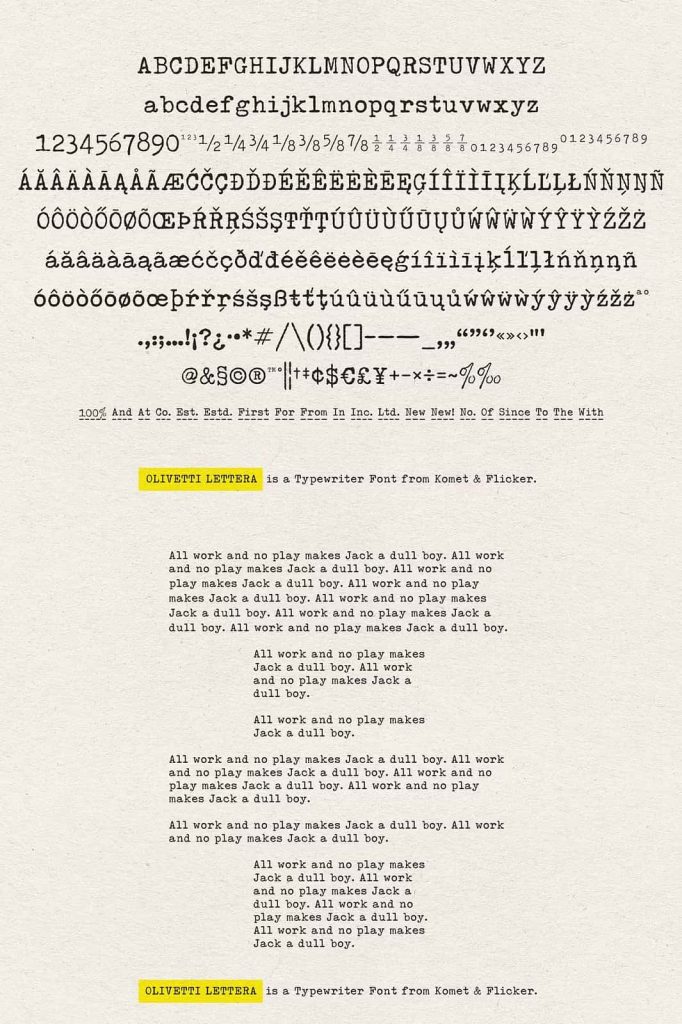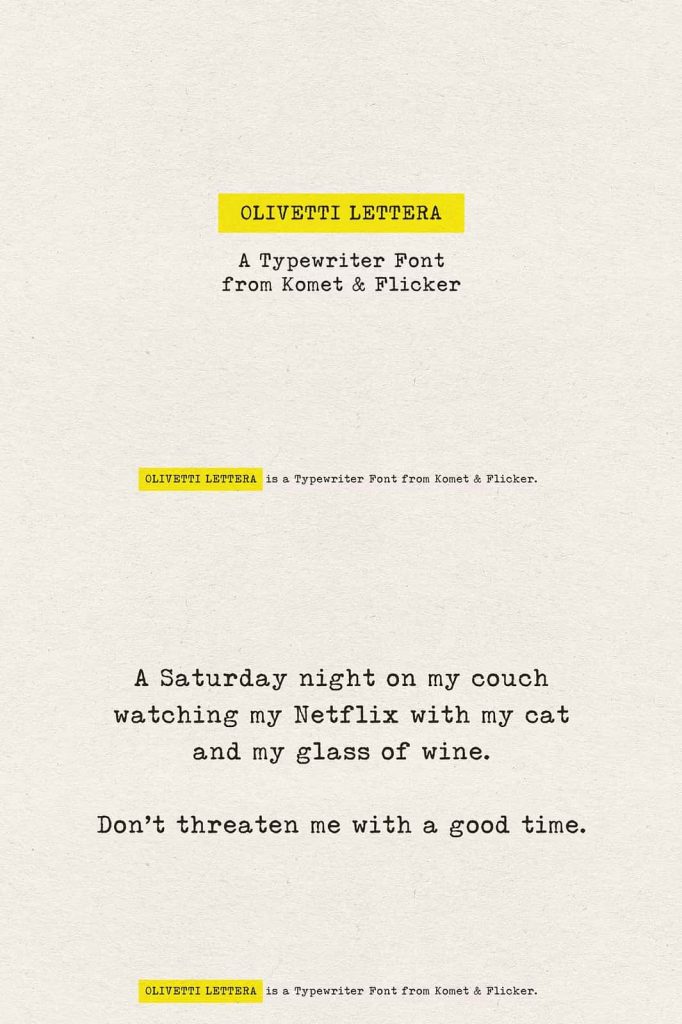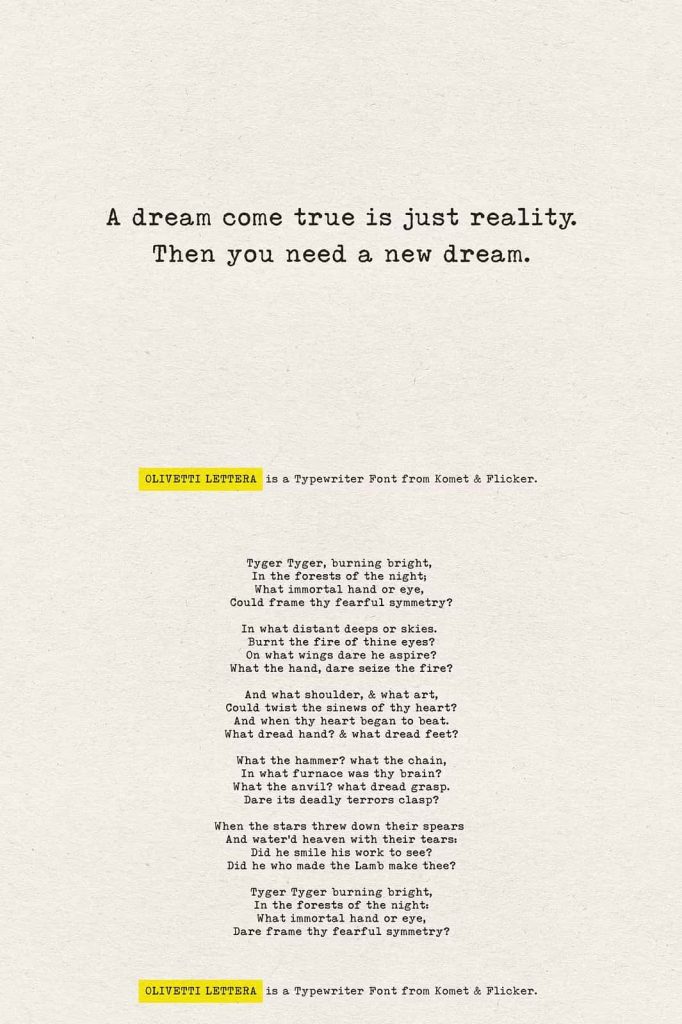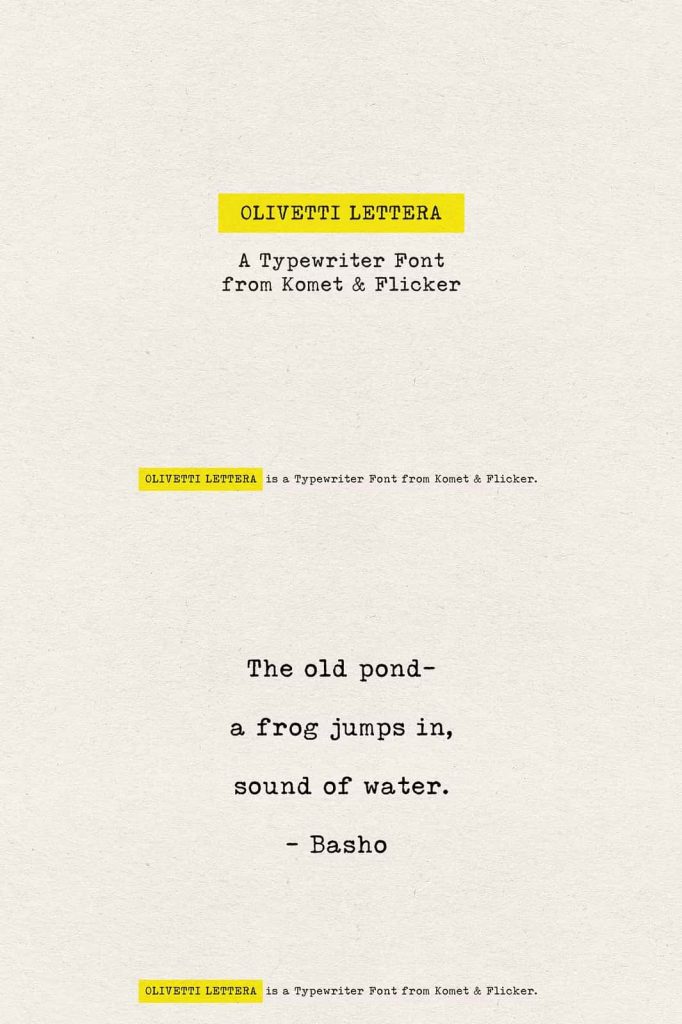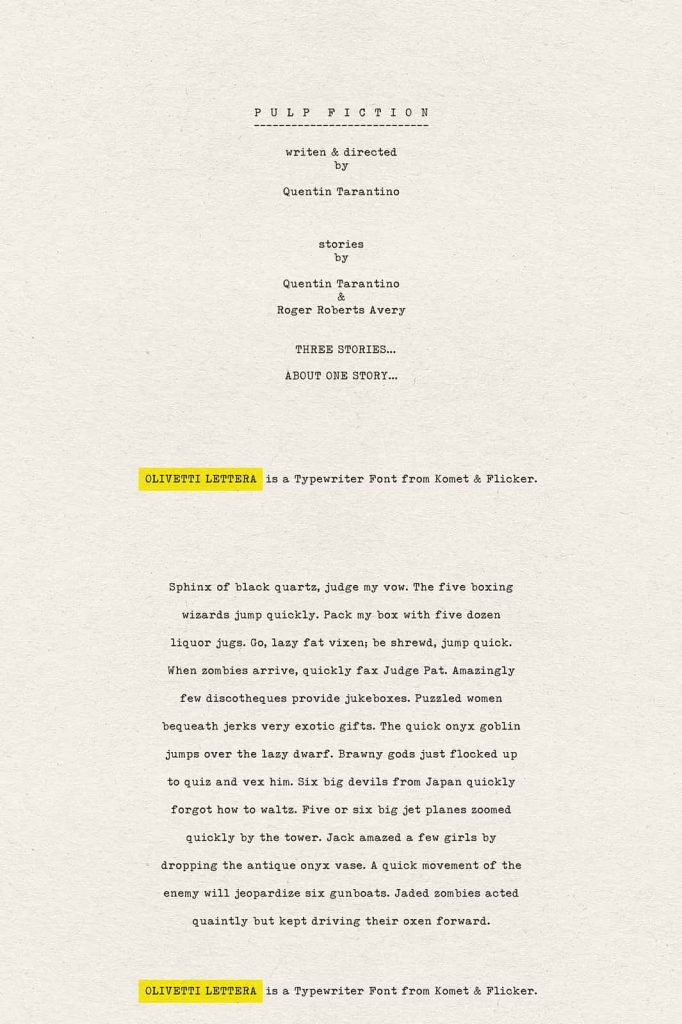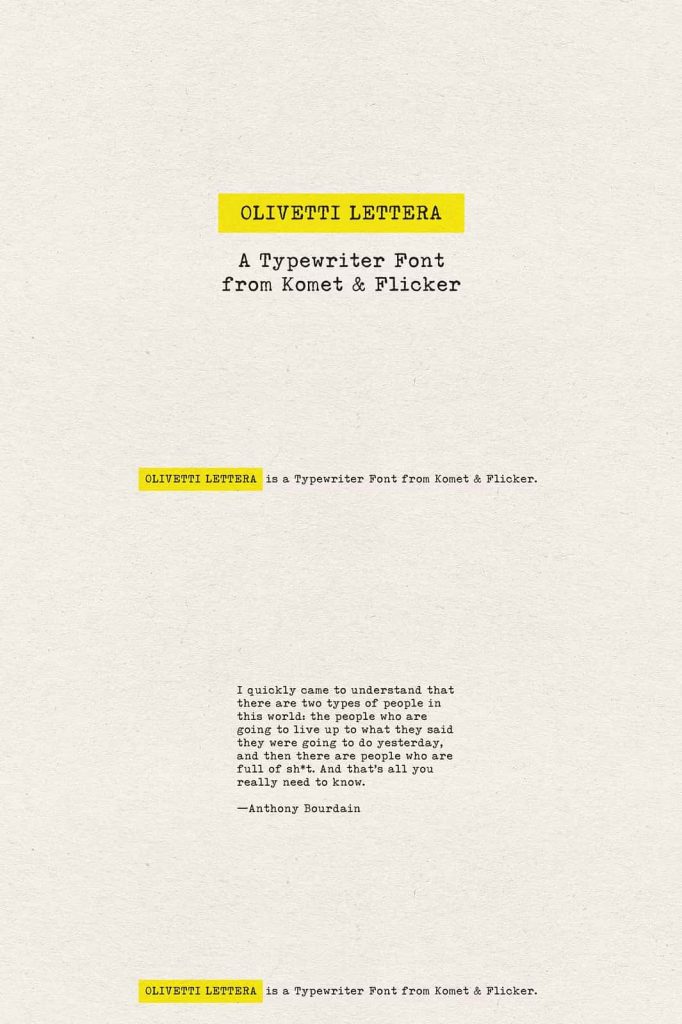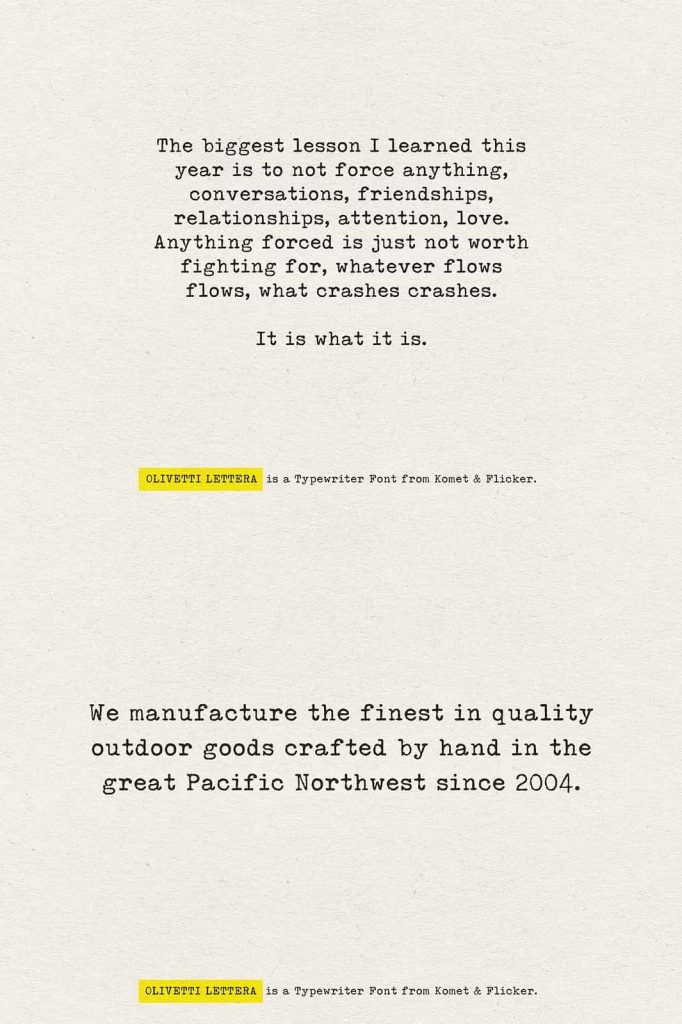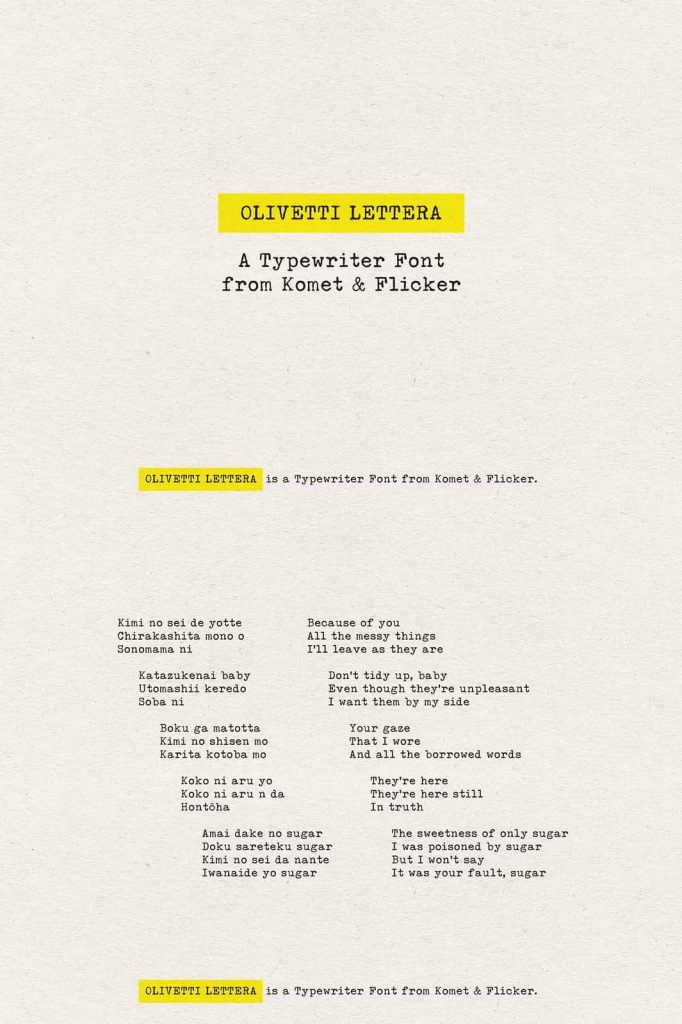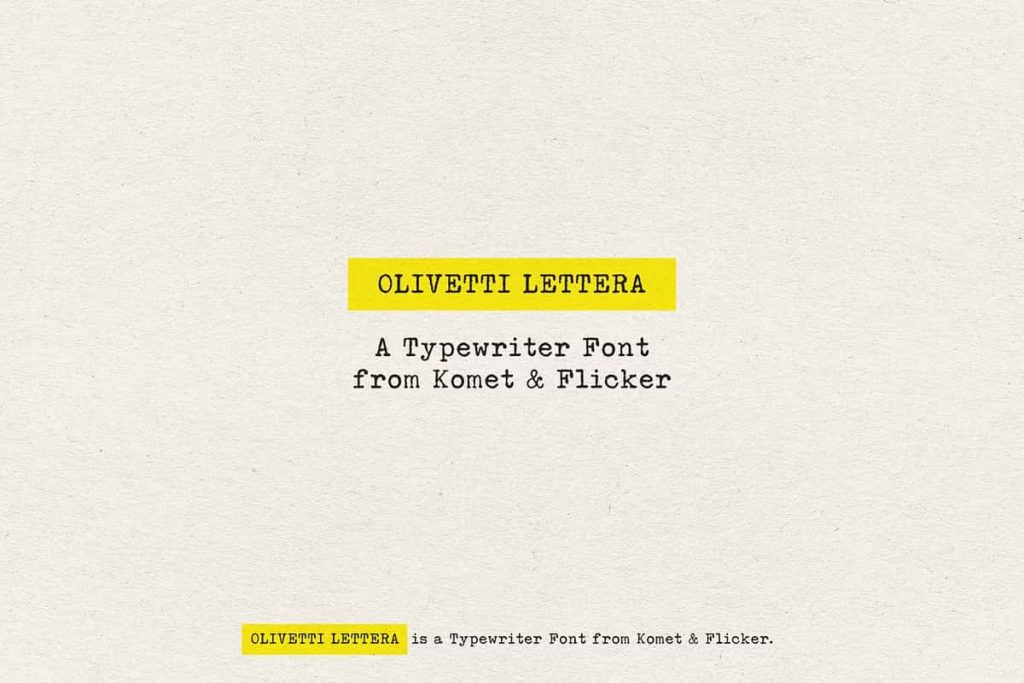
Olivetti Lettera – A Typewriter Font
Olivetti Lettera Serif Font with Vintage Typewriter Character
Olivetti Lettera is a refined serif font inspired by the iconic Lettera 35 typewriter, known for its timeless charm and mechanical precision. This typeface captures the essence of analog design by blending structured serif forms with the raw, tactile imperfections of vintage typing. Every character reflects the spirit of classic typewriting, allowing designers to bring authenticity and personality into their work.
Inspired by Classic Typewriter Heritage
The Olivetti Lettera font draws direct inspiration from the renowned typewriter era, where every keystroke carried subtle variations and texture. Instead of creating a perfectly uniform digital font, this typeface embraces irregularity to replicate the look and feel of real ink hitting paper. This approach adds depth and character, making your designs feel more human and expressive.
Designers can use this font to recreate the nostalgic atmosphere of vintage documents, letters, and editorial layouts. Its authentic appearance allows you to tell stories visually, connecting your audience with a sense of history and craftsmanship.
Mechanical Elegance Meets Organic Imperfection
Olivetti Lettera balances precision and imperfection in a way that feels natural and intentional. The serif structure provides clarity and readability, while the subtle inconsistencies in each letter introduce texture and uniqueness. This combination results in a font that feels both structured and alive.
The slightly rough edges and ink-like variations mimic the mechanical limitations of traditional typewriters, enhancing the overall authenticity. These details make the font ideal for projects that require a handcrafted or editorial look.
Create Authentic Editorial and Print Designs
Olivetti Lettera performs exceptionally well in editorial design. Its vintage aesthetic adds depth to magazines, books, and printed materials, helping you create layouts that feel rich and engaging. You can use it for headlines, body text, or decorative elements to build a cohesive and visually compelling composition.
The font also works beautifully in storytelling projects, where the tactile quality enhances the narrative experience. Readers can feel the connection to traditional printing techniques, making your content more immersive.
Perfect for Branding with Character
If you want to create a brand identity that stands out with authenticity, Olivetti Lettera offers a strong foundation. Its distinctive style communicates creativity, heritage, and originality. This makes it an excellent choice for brands that value craftsmanship and storytelling.
You can design logos, packaging, and promotional materials that feel unique and memorable. The font’s vintage appeal helps your brand establish a strong visual identity while maintaining a professional and polished look.
Enhance Creative and Artistic Projects
Olivetti Lettera opens up endless possibilities for creative experimentation. You can use it in posters, art prints, and social media graphics to create designs that feel expressive and textured. Its analog-inspired details add depth, making your visuals more engaging and distinctive.
The font also works well in projects that aim to blend modern design with retro aesthetics. This versatility allows you to explore different creative directions without losing consistency.
Versatile for Digital and Print Applications
Although inspired by vintage typewriters, Olivetti Lettera adapts seamlessly to modern digital environments. It maintains clarity across different screen sizes while preserving its textured and organic appearance. This makes it suitable for websites, blogs, and online publications that want to achieve a unique editorial style.
In print, the font truly shines by enhancing the tactile experience. Its subtle imperfections become more pronounced, adding depth and authenticity to physical materials.
Key Features of Olivetti Lettera Font
• Serif typeface inspired by the Olivetti Lettera 35 typewriter
• Authentic vintage texture with subtle imperfections
• Combines mechanical structure with organic character
• Ideal for editorial, branding, and artistic projects
• Works effectively in both print and digital formats
Bring Analog Authenticity into Your Designs
Olivetti Lettera serif font allows you to capture the beauty of traditional typewriting while working within modern design environments. Its combination of elegance, texture, and historical inspiration makes it a powerful tool for creating meaningful and visually rich designs.
If you want to produce work that feels authentic, expressive, and timeless, Olivetti Lettera delivers exactly that. Use it to add depth, personality, and a strong sense of heritage to your creative projects.